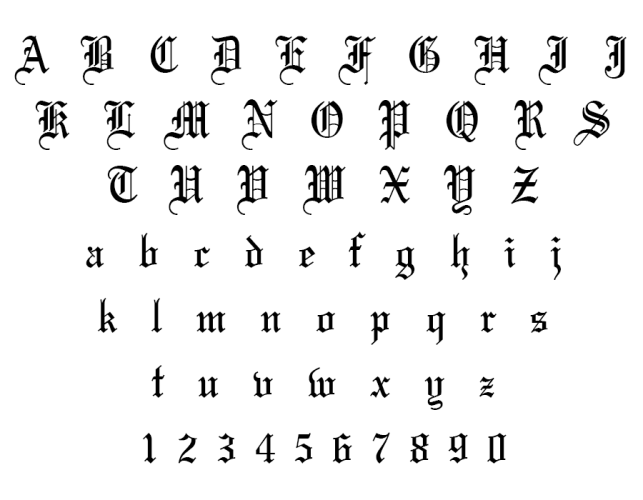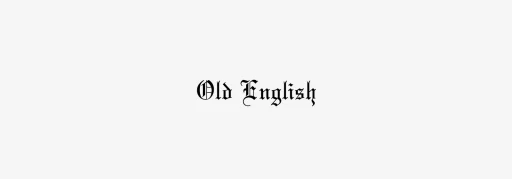
Old English Font
Old English Font brings a classic blackletter style with strong strokes and historic charm. Its sharp edges and detailed forms make it perfect for certificates, logos, h…
Old English Font brings a classic blackletter style with strong strokes and historic charm. Its sharp edges and detailed forms make it perfect for certificates, logos, headlines, and designs that need a traditional Gothic look. Designers choose Old English when they want bold lettering that reflects heritage, authority, and medieval character.
Old English Font is built for size: event posters, hero headlines and billboard-style layouts.
High contrast display type like Old English Font reads instantly in thumbnails and motion graphics.